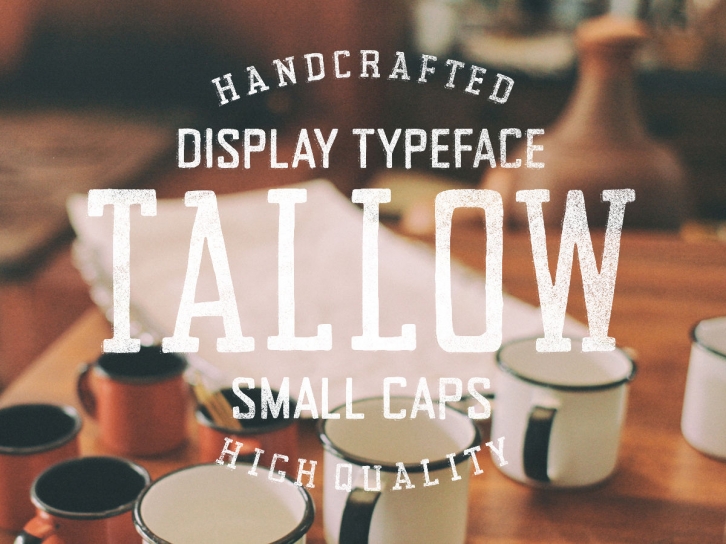
Introducing the Tallow font family, an uppercase (+ small caps) hand drawn family that can be a great asset in a variety of design scenarios. Inspired by current trends, the design of Tallow is simple, effective and is available in both sans and serif styles that work great in combination.
• Extended Latin Coverage